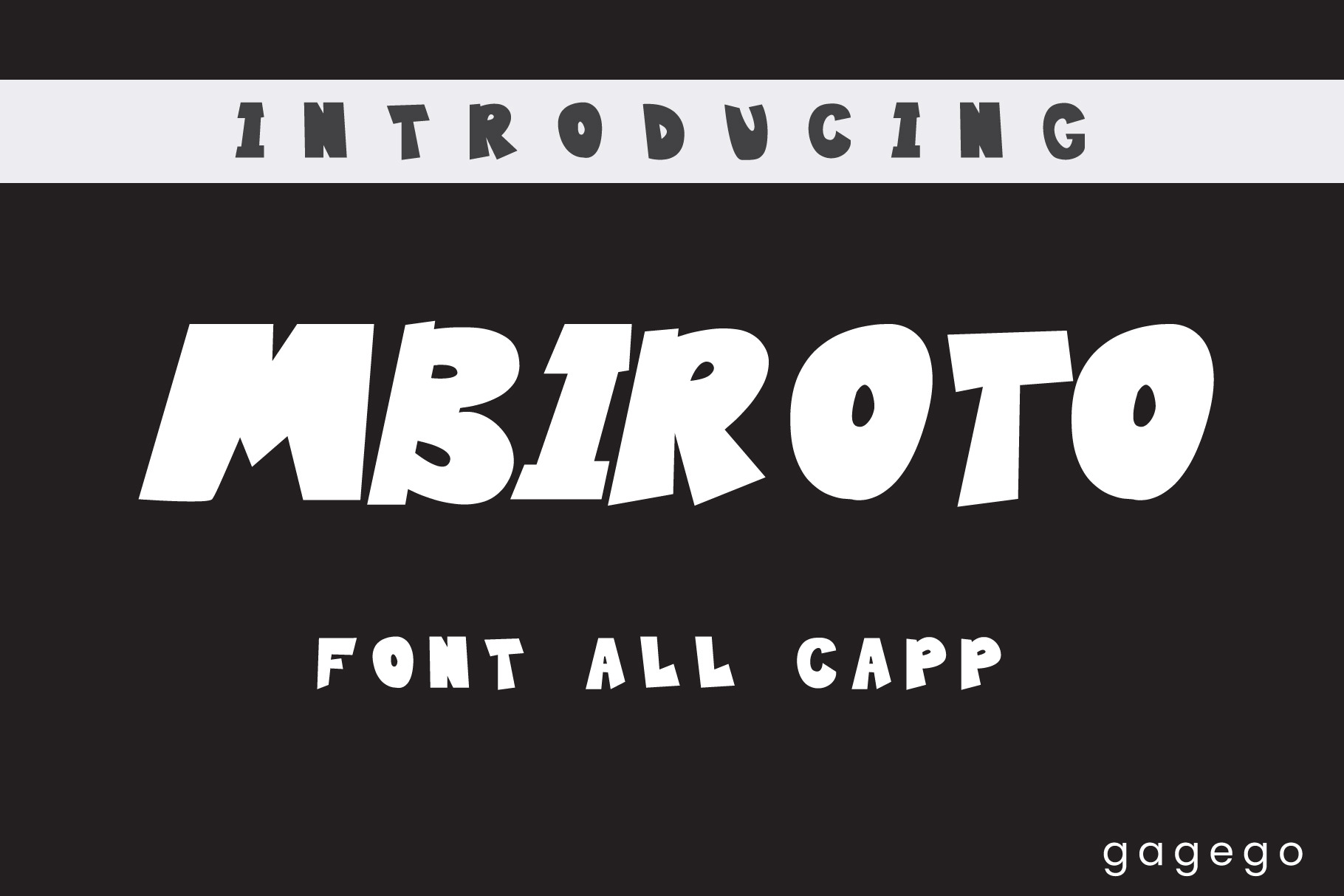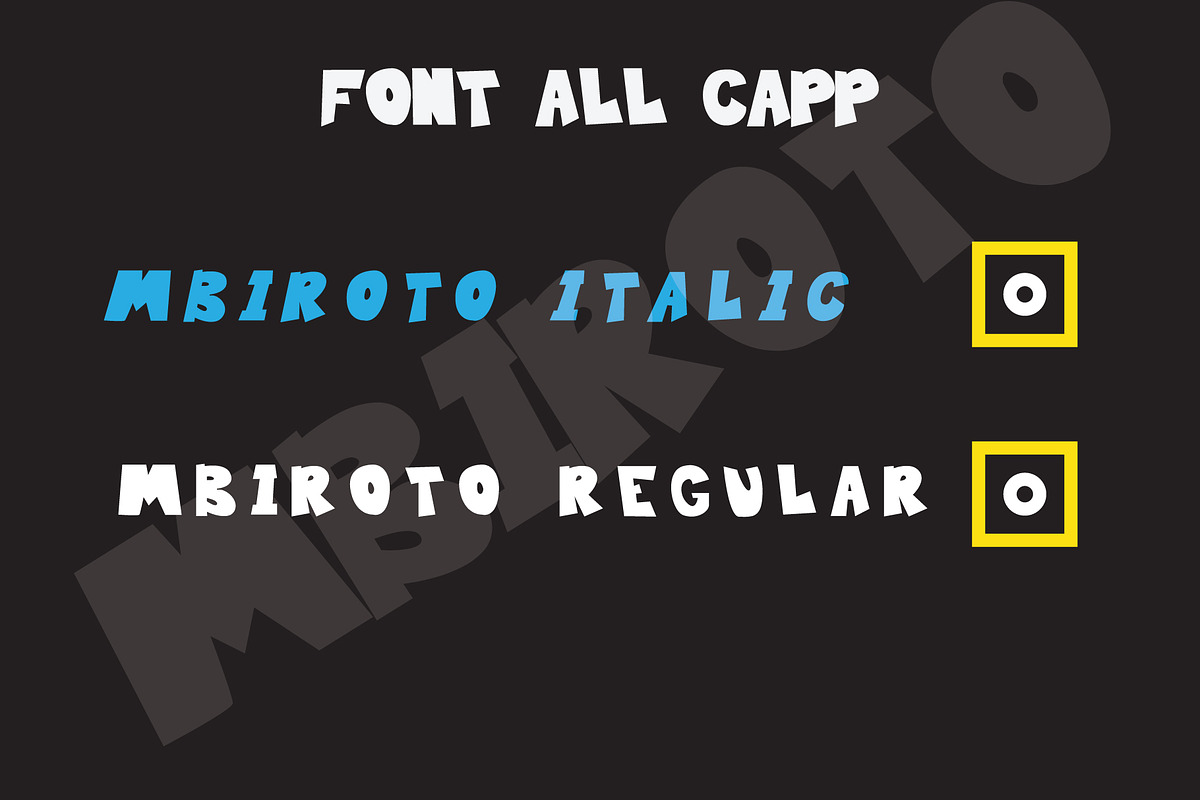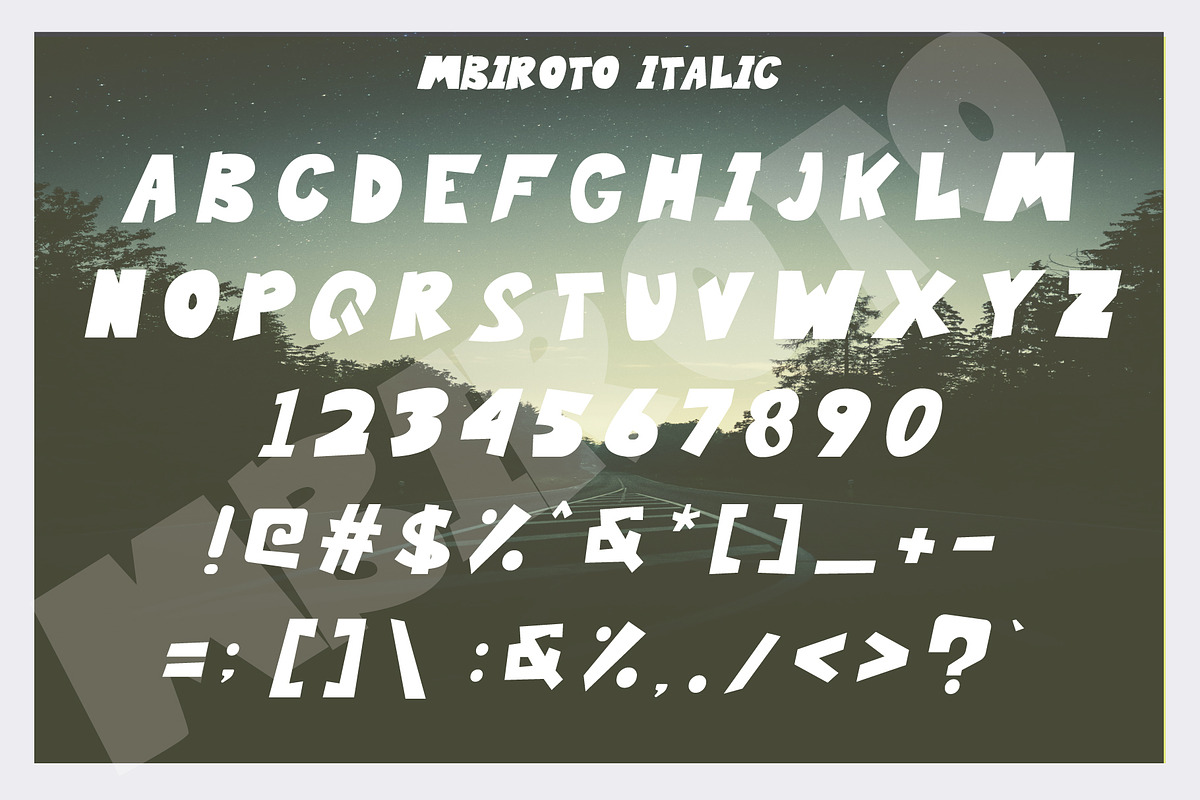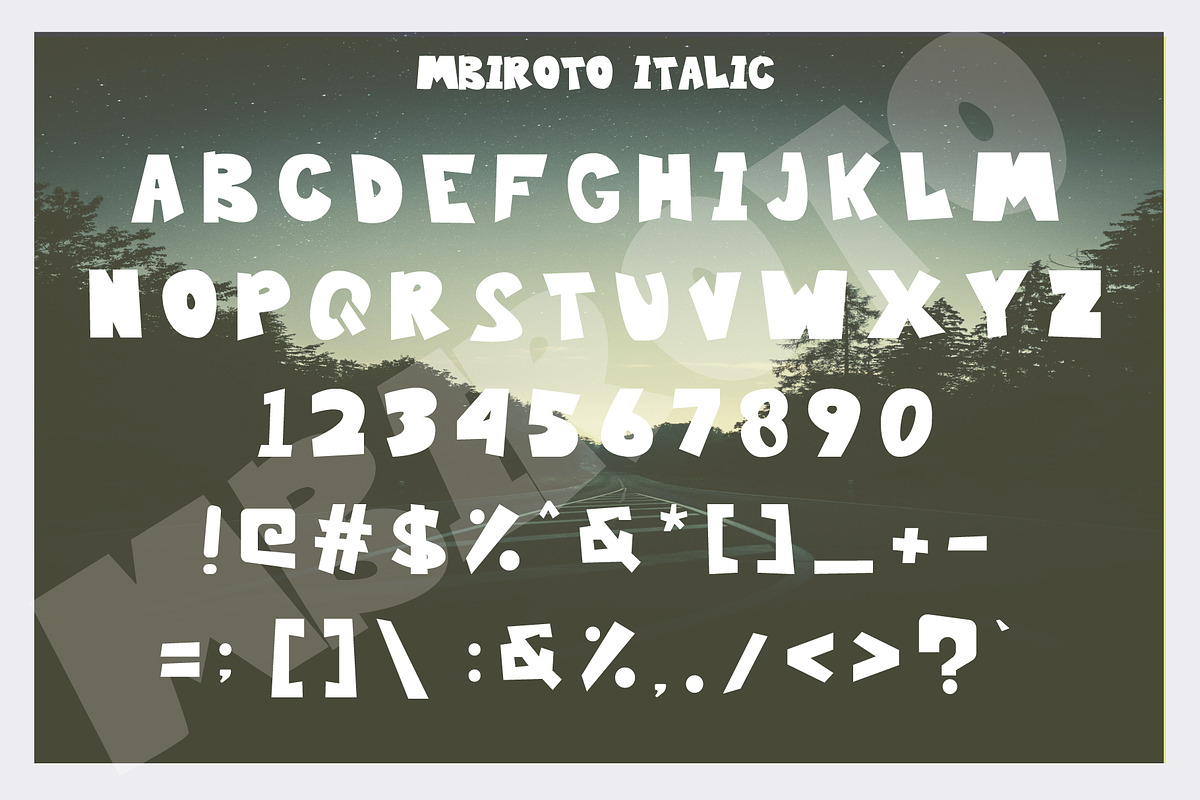
Mbiroto font allcaps
We provide a unique but interesting font that name is MBIROTO FONT. This font only provides uppercase letters, does not provide lowercase letters. This font is suitable for making books or banners and whatever, because this font looks relaxed, happy, happy, and unique. MBIROTO FONT is available in 2 types of fonts 1 Mbiroto regular 2 Mbiroto italic both are very unique, to be able to get this font you can buy it at creativemarket or you can contact us directly at gagegoart@gmail.com We also provide other fonts that are no less cool than this font. Thank you, I hope you can give us a review of our work.